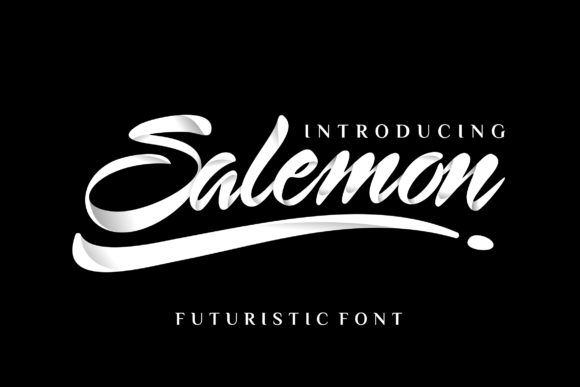
Dive into the world of Salemon Script - a font so bold and authentic, it'll make your designs stand out like a shining star. Experience the beauty of handwritten elegance, crafted with impeccable precision to bring your creative visions to life. Unleash the power of Salemon and let your designs speak volumes.
With Salemon Script, you're not just downloading a font - you're inviting a timeless classic into your design arsenal. Its carefully crafted strokes and curves exude a charm that's both captivating and inviting. Each letter, a work of art, dances across the page, leaving a trail of sophistication and style.
Harness the versatility of Salemon Script and watch it seamlessly adapt to your every need. Whether you're crafting a sleek logo, unleashing your creativity on a t-shirt design, or injecting a touch of authenticity into your sports-inspired creations, Salemon Script is your ultimate companion. Its adaptability knows no bounds, making it the perfect choice for a myriad of projects.
Step into a world where your designs take center stage, where every stroke tells a story, and every letter captivates. Salemon Script is more than just a font; it's an experience that redefines the boundaries of creativity. Its bold presence and unwavering authenticity will elevate your designs to new heights, leaving an unforgettable mark on all who encounter them.
Take the plunge and embrace the allure of Salemon Script. Let its timeless elegance weave its magic into your creations, transforming them into masterpieces that resonate with your audience. Salemon Script awaits you, ready to ignite your imagination and set your designs ablaze with its unwavering charm.